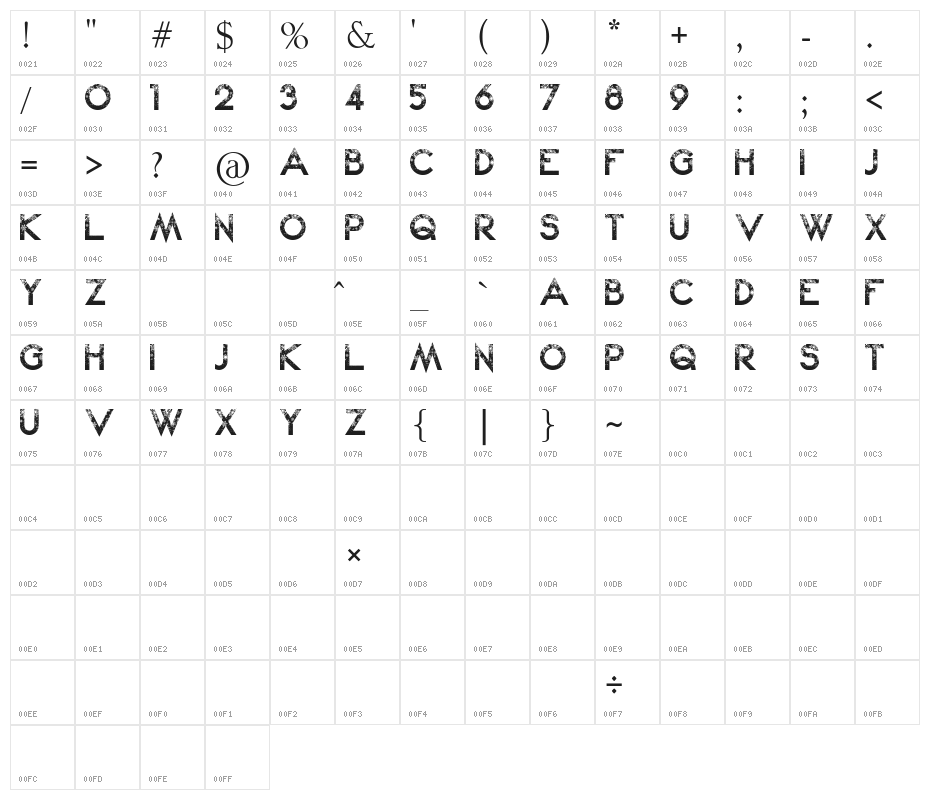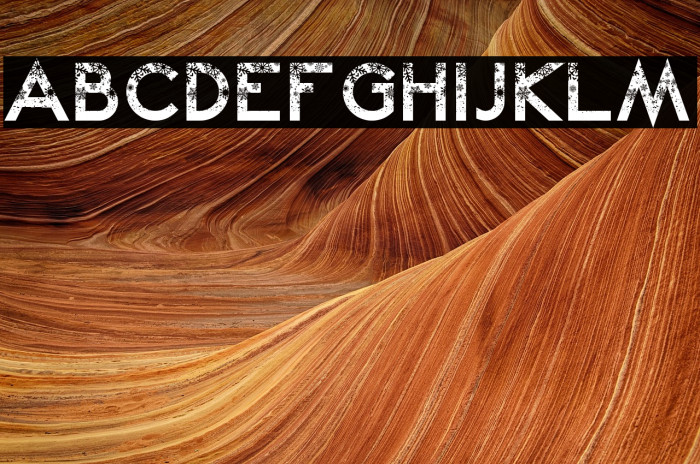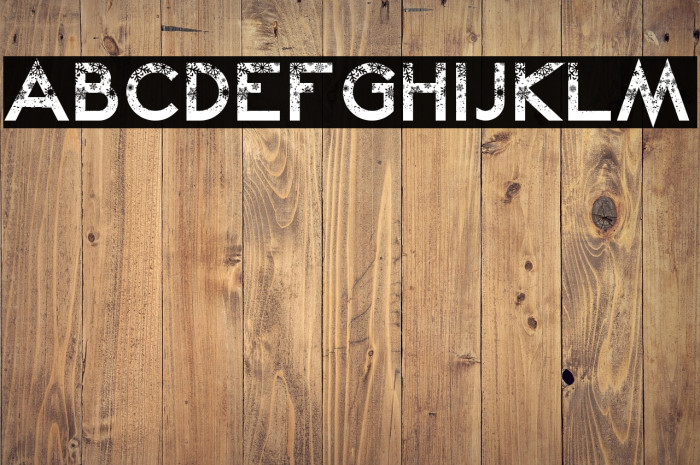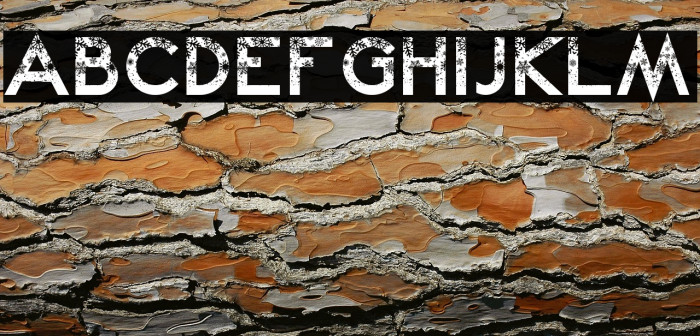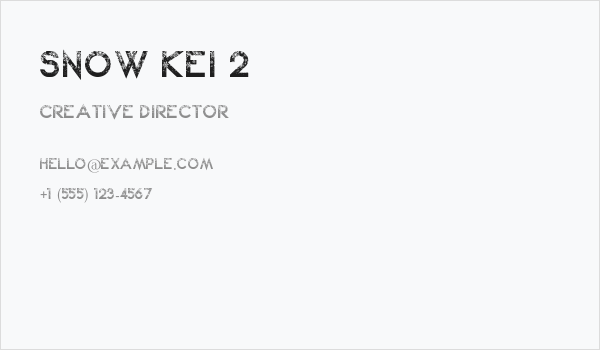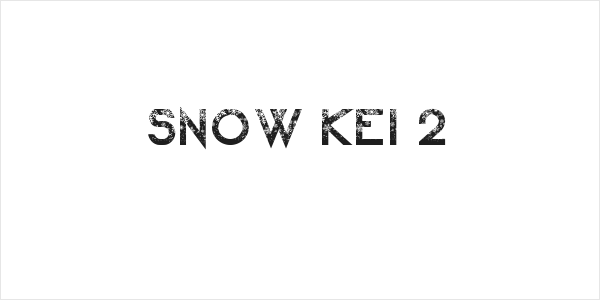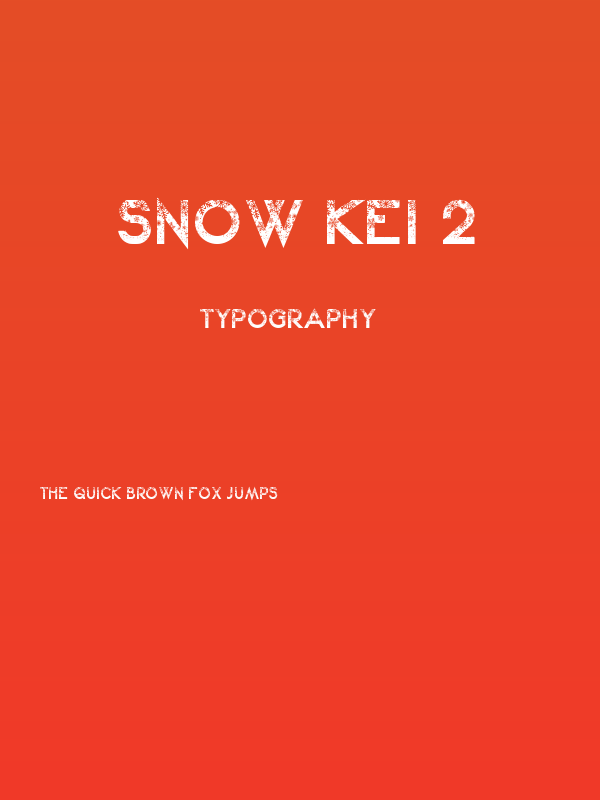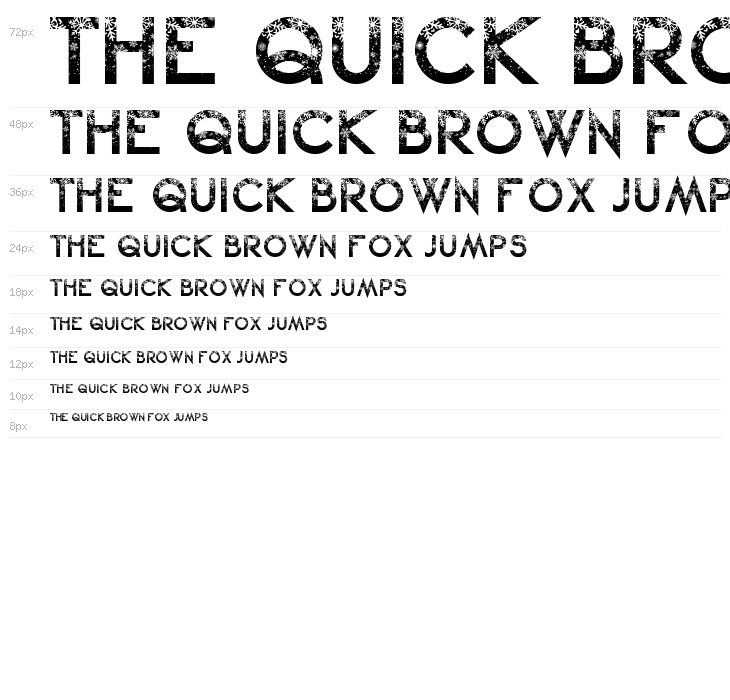
Snow Kei 2 Font
Snow Kei 2 Description
This font features a bold, decorative style with a unique snowflake pattern embedded within each character, creating a textured and festive appearance. The uppercase letters are prominent and eye-catching, making them ideal for holiday-themed designs. The numbers and special characters maintain the same snowy texture, ensuring consistency across all glyphs. The overall design is playful and visually striking, perfect for adding a wintery touch to any project.
| Proposed Projects | Ideal for holiday cards, winter event posters, festive banners, and seasonal branding. |